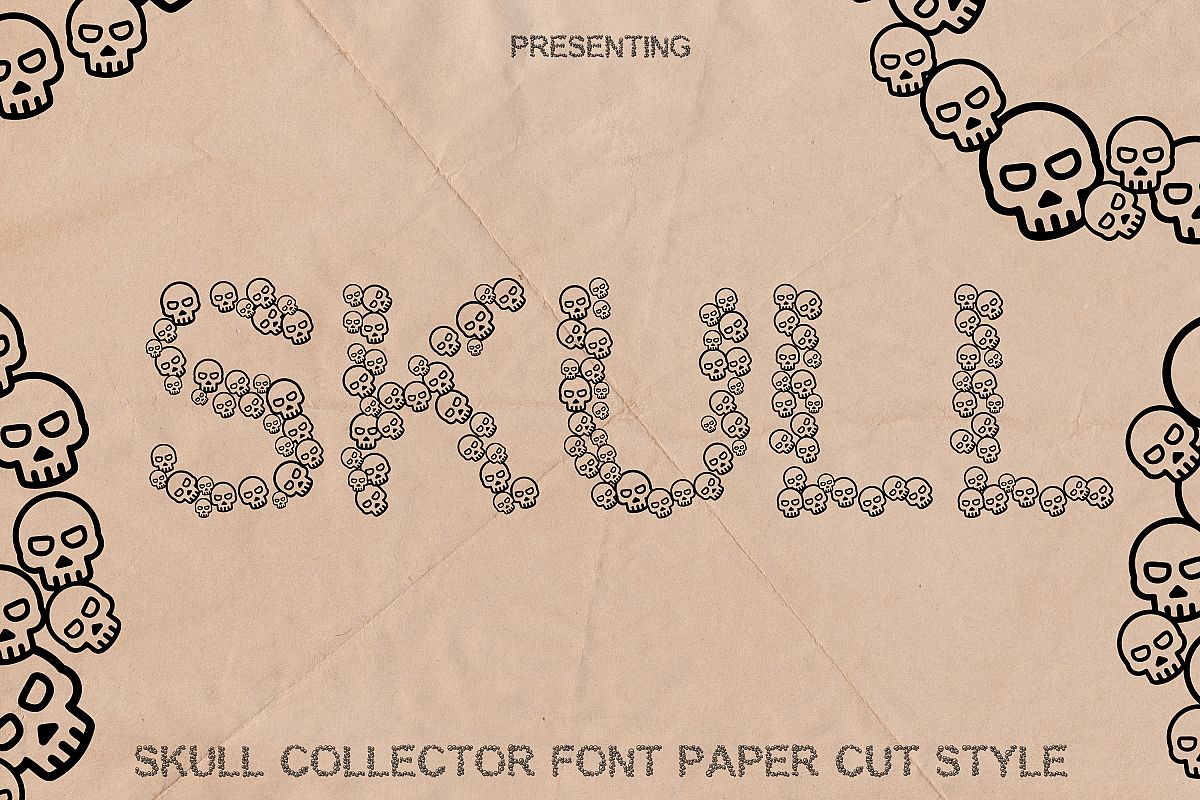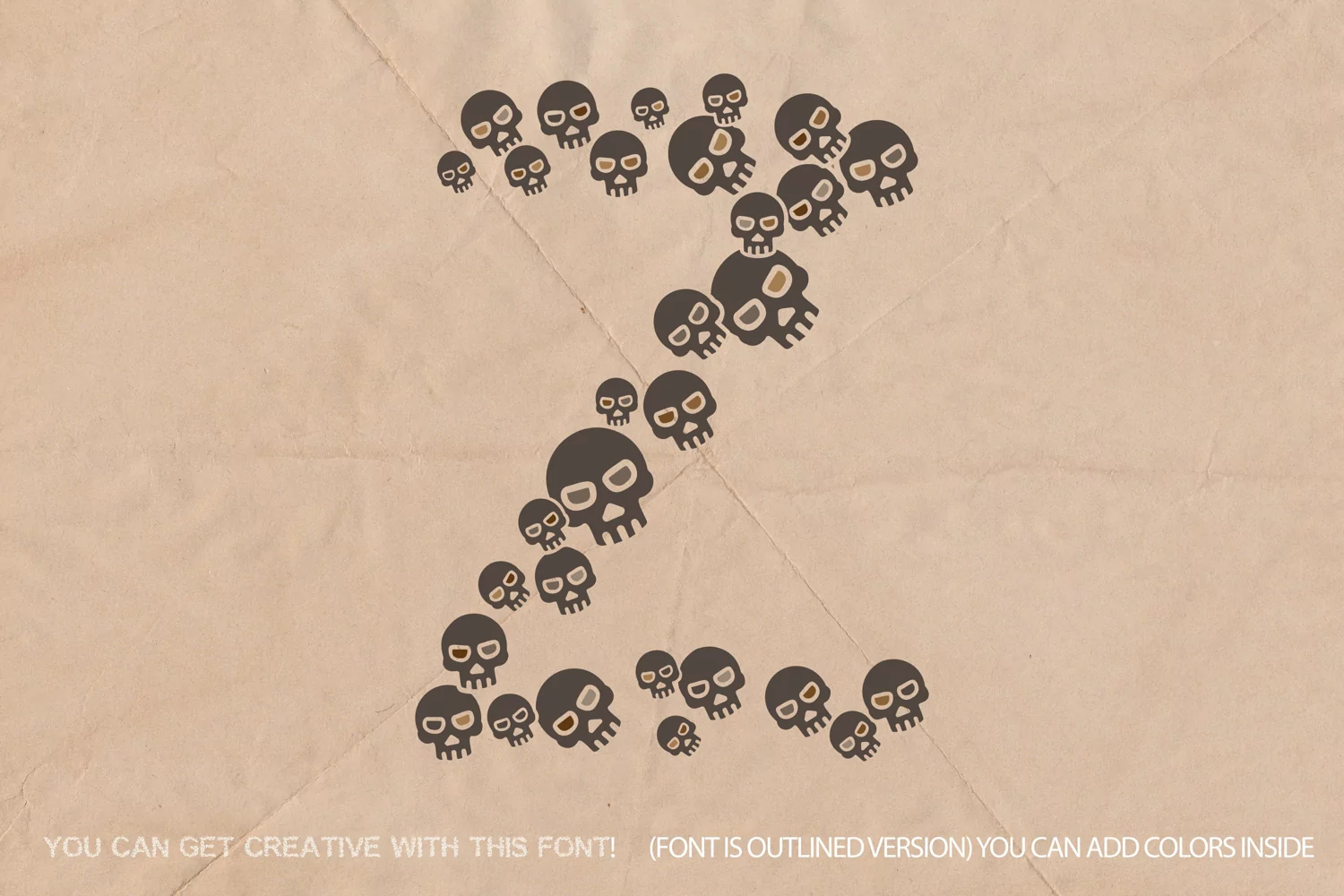
Skulls Font - Fun Craft Font Paper Cut Style
Presenting Cute font for you. This Special Paper Cut Skull Font can be used in tons of projects specially in child and new born projects. You can use it for craft purpose and this will looks great on shirts, printing material and other stuff.
2- UPPER Case only Letters A to Z and 0 to 9
3- Super Cute and Creative